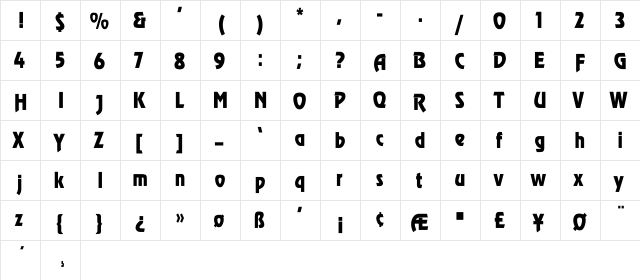
Revue-Thin Regular Font Preview
Revue-Thin Regular Regular
Design Context for Revue-Thin Regular Typeface
Revue-Thin Regular takes a measured approach to typography — its balanced proportions and neutral character make it a reliable workhorse for both digital and print work. Its slender proportions lend an understated elegance to any composition.